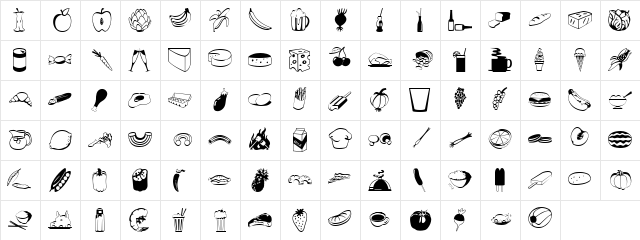
FOOD! Regular Font Preview
FOOD! Regular
FOOD! Regular Font Details
Design Context for FOOD! Typeface
FOOD! is a composed and adaptable typeface that performs quietly and consistently across a wide range of design contexts.